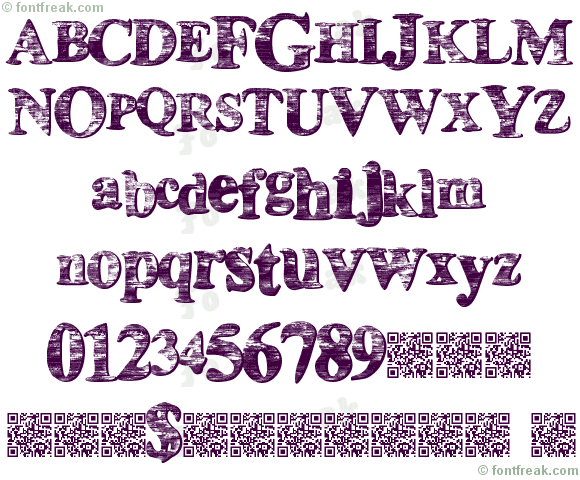
HouseBoat
HouseBoat by Xerographer Fonts is a unique decorative typeface that brings a playful and rustic charm to various design projects. This font features a bold, hand-crafted appearance with varying stroke weights that lend it a dynamic and lively character. The uneven edges and textured finish give it an organic feel, making it perfect for designs that aim to evoke warmth and authenticity. Its generous letter spacing enhances readability while still maintaining a laid-back aesthetic, appealing to a wide range of creative uses.
Given its distinctive style, HouseBoat is particularly well-suited for wedding invitations, where its whimsical nature can beautifully capture the essence of love and celebration. It also shines in restaurant menus, adding a touch of personality that can make any dining experience feel special. Additionally, the font works wonderfully for movie posters, especially those in the indie or adventure genres, as it can convey a sense of storytelling and exploration. Small business owners can also benefit from using HouseBoat in branding materials, as it can effectively communicate a friendly and approachable image to customers.
What sets HouseBoat apart is its ability to blend a casual yet artistic flair with functionality. This font stands out not only for its visual appeal but also for its versatility across various applications. If you're seeking a distinctive and engaging typeface for your next project, HouseBoat font free download is a fantastic option to consider.